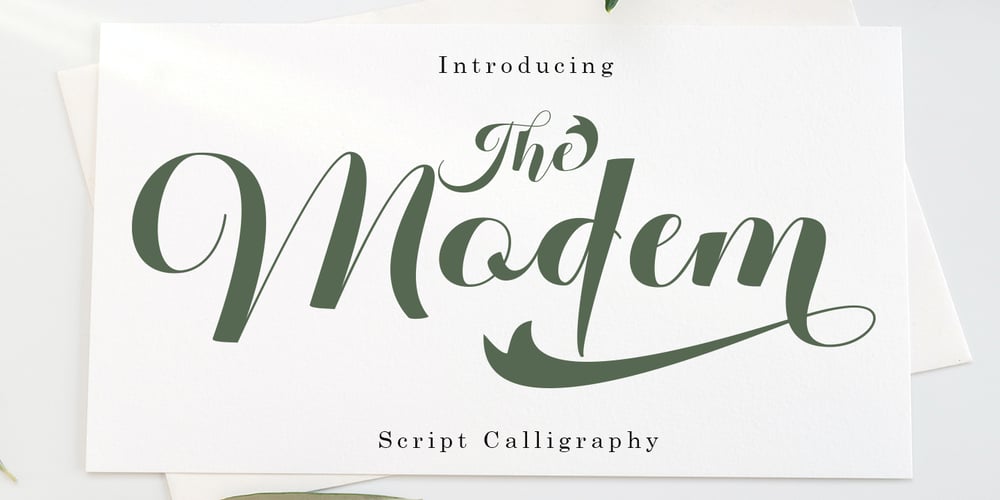
Modem Font Family was designed by Nasrullah and published by Sulthan Studio. Modem contains 1 styles and family package options. The Modem is a beautiful and smooth script font. It is suitable for various purposes such as digital letters, titles, logos, wedding invitations, t-shirts, letterheads, signage and more! This font is PUA encoded which means you can access all glyphs and swashes with ease!